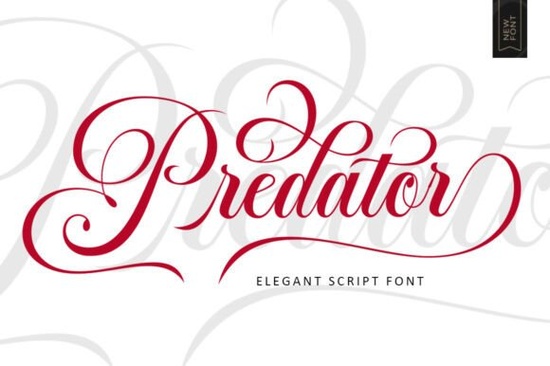
Finding the right script font for elegant design projects can be tricky. You want something that looks luxurious without being hard to read. The Predator Script font does exactly that it combines graceful letter connections with a clean, feminine style that works across many design applications.
What Design Projects Work Best with Predator Font?
The Predator font is built for formal and elegant use cases. Here's where it really shines:
- Wedding invitations and greeting cards its flowing script feels romantic and refined
- Restaurant menus and food labels adds a touch of class to food branding
- Logos and branding works well for fashion, beauty, and lifestyle brands
- Stationery and packaging gives products a premium, polished look
- Books, novels, and magazines useful for chapter titles, headers, and decorative text
- Print-on-demand products perfect for mugs, tote bags, and wall art with elegant quotes
What's Included in the Predator Font File?
One thing I appreciate about this font is the completeness of the package. You get:
- Uppercase letters for headlines and emphasis
- Lowercase letters for body text and flowing script designs
- Alternate characters extra stylistic variations to add variety
- Numbers and punctuation so you can use it for full sentences and addresses
- Multilingual support helpful if you're designing for international audiences
Having alternates included is a big deal. It means you don't have to buy extra add-on packs just to get different letter styles. This is something you'll also find in other well-designed writing script fonts available in the same category.
Is Predator Script Easy to Read?
This is a common concern with script fonts. Many decorative scripts sacrifice readability for style. Predator Script handles this balance well thanks to its clean letter connections. Each character flows naturally into the next, so words are easy to recognize even at smaller sizes.
That said, it's still a script font so it's best used for:
- Headlines and display text
- Short phrases and quotes
- Logo text and brand names
- Decorative headings
For longer paragraphs or body copy, pair it with a simple sans-serif or serif font to keep your designs readable.
How Does It Compare to Other Script Fonts?
If you're browsing for script fonts with historical character, Predator Script leans more modern and elegant rather than vintage or rustic. It has a luxurious feel without looking overly ornate.
For designers who want a signature-style writing font, Predator Script can work for that too especially in logo designs or personal branding projects where a handwritten, sophisticated look is the goal.
Compared to heavier calligraphy fonts, Predator Script feels lighter and more refined. It doesn't try to overwhelm the design with dramatic swashes. Instead, it lets the letterforms do the work with subtle curves and balanced spacing.
Who Should Use This Font?
Predator Script is a solid choice for:
- Wedding stationery designers who need an elegant script for invitations and RSVP cards
- Print-on-demand sellers looking for feminine, upscale fonts for product designs
- Small business owners creating menus, labels, or packaging with a premium feel
- Graphic designers working on branding projects for beauty, fashion, or lifestyle clients
- Crafters and hobbyists making greeting cards, scrapbook pages, or home decor quotes